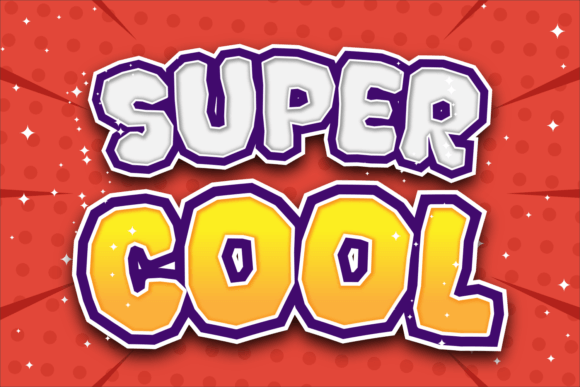
Super Cool: A Display Font That Elevates Digital Branding
Two days ago, I dropped Super Cool into the hero section of a new coaching website—just the headline, no subhead yet—and instantly felt the shift. Not in a flashy way, but in that quiet, confident way good typography works: the layout breathed easier, the tone sharpened, and the brand’s personality clicked into place. As a UI designer who spends half my week testing fonts across real responsive layouts, I don’t reach for display fonts lightly. But Super Cool stood out—not because it shouts, but because it carries weight, rhythm, and intention.
Visually, Super Cool is a modern display font with distinctive character shapes—slightly tapered terminals, subtle asymmetry in curves, and a balanced contrast between thick and thin strokes. It’s not geometric, not retro, not handwritten—but unmistakably contemporary. There’s warmth in its structure and clarity in its spacing. On screen, it renders cleanly at large sizes, holds up over textured backgrounds, and avoids the “overdesigned” fatigue some decorative fonts trigger after five seconds of scanning.
I tested it across several real-world placements: a boutique online store’s seasonal banner, a course sales page headline above a CTA button, and a portfolio homepage where it anchored the name tag beneath a hero image. In each case, Super Cool worked best as a hero title or section heading—not body text, not small interface labels. Its strength lies in presence, not density. For example, on the coaching site, pairing “Your Clarity Starts Here” in Super Cool with a clean sans serif like Inter for the supporting paragraph created instant visual hierarchy—no extra styling needed.
Readability? At 48px and up on desktop, it’s highly legible—even with light tracking. On mobile, I scaled it to 36px with generous line-height and kept it to single-line headlines only. Anything longer than six words started to lose impact, especially on smaller viewports. I also avoided using it over busy image overlays without a subtle text shadow or background tint—its charm fades when competing for attention.
Where Super Cool shines most is in shaping first impressions. On a campaign landing page for a sustainable skincare launch, it gave the headline “Glow With Purpose” an approachable authority—professional without stiffness, creative without clutter. That balance matters. Users don’t read every word in a hero section; they absorb tone, trust, and intent in under two seconds. A well-chosen display font like Super Cool supports that micro-moment better than any animation or gradient ever could.
It’s not a one-size-fits-all solution. I wouldn’t use it for navigation menus, form fields, or button labels under 16px—it’s not built for functional UI text. And while it handles uppercase well (great for short banners or logo lockups), lowercase settings need careful testing—some characters have tight counters that tighten further at smaller sizes. For digital ads or social graphics, I used it sparingly: once per asset, always at the focal point, never stacked with other decorative fonts.
Font pairing was intuitive. With Super Cool as the voice, I reached for neutral, highly readable sans serifs—Inter, Manrope, or even system stacks like -apple-system, BlinkMacSystemFont—for everything else. One client project tried pairing it with a gentle serif (Cormorant Garamond) for blog headers, and it worked beautifully for an editorial-leaning brand kit—adding texture without sacrificing clarity. The key is contrast: let Super Cool be expressive, then anchor it with something calm and consistent.
In a world of interchangeable sans serifs and overused script fonts, Super Cool feels like a thoughtful alternative—not trendy, not nostalgic, but quietly confident. It doesn’t try to be everything. It’s a display font, designed to highlight, not explain. That focus makes it reliable. Whether you’re refreshing a blog header, designing a digital brand kit, or launching a product landing page, Super Cool gives your typography room to mean something.
A few final notes from the front lines: test it with your actual content—not just “Lorem ipsum”—and pay attention to how it behaves next to icons, illustrations, and photography. Try it on both light and dark mode interfaces. See how it feels in your CMS editor before committing to global styles. And remember: the best display fonts don’t distract—they deepen. Super Cool does exactly that.
- Best for: Hero headlines, section titles, campaign banners, logo lockups, portfolio names, course page headers
- Avoid for: Body copy, small buttons, navigation labels, data tables, long paragraphs
- Pair with: Neutral sans serifs (Inter, Manrope, System UI) or soft serifs (Cormorant, Lora) for contrast
- Mobile tip: Stick to single-line usage at ≥36px, add subtle text shadow over images